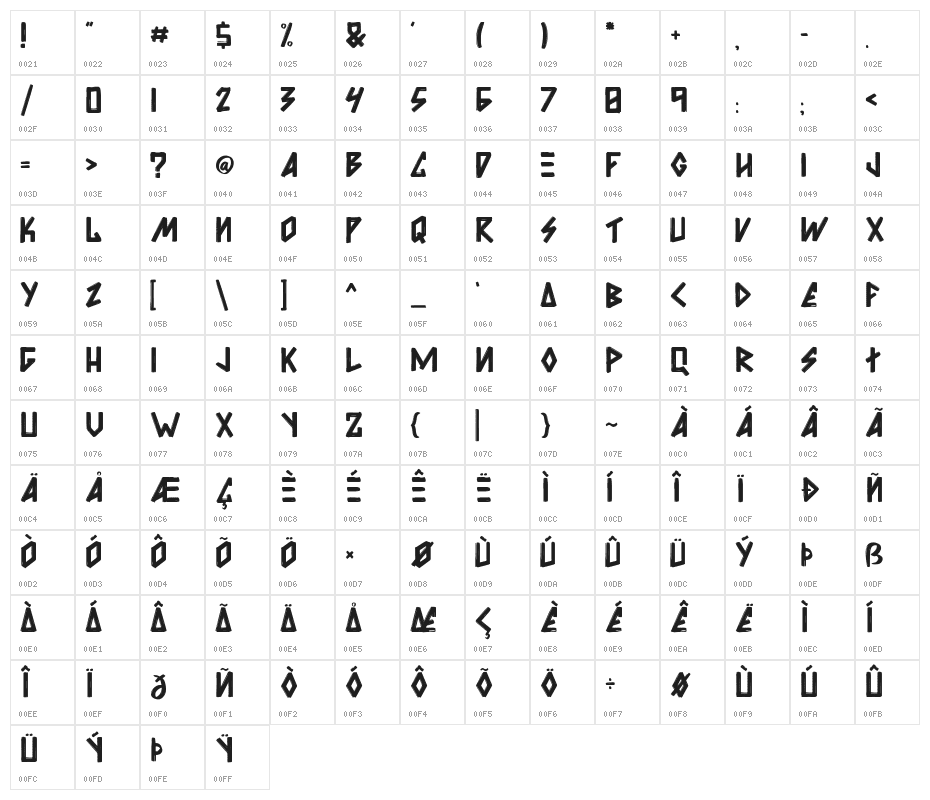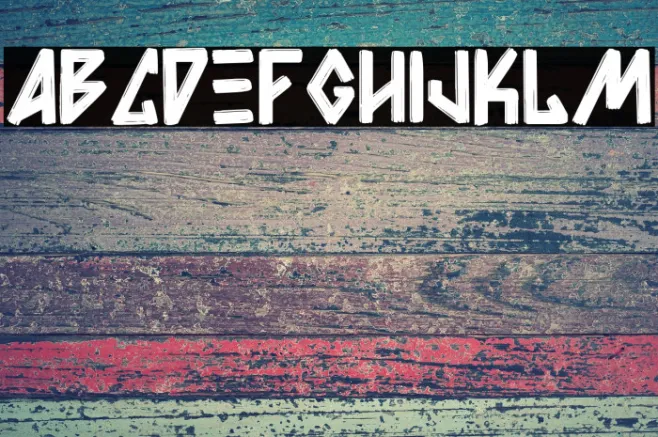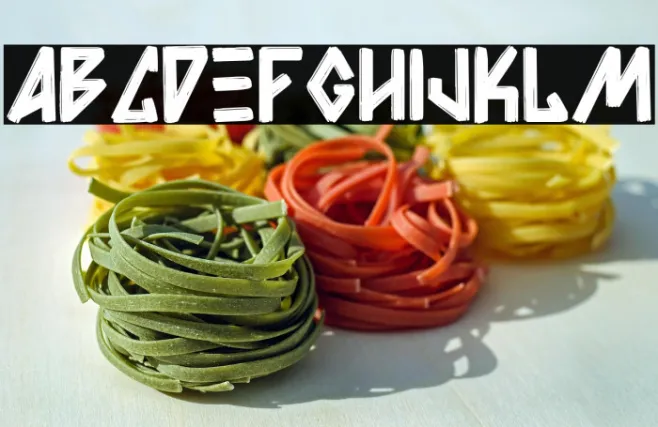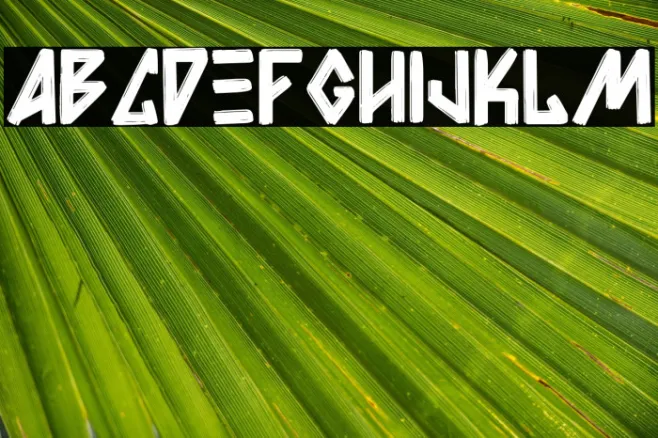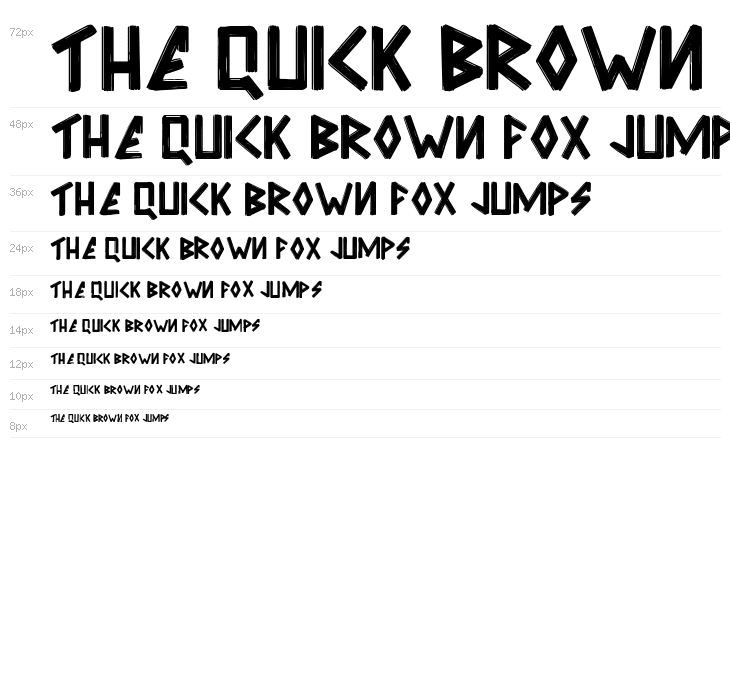
Awesome Brush Font
Awesome Brush Description
This font features a bold and dynamic brush style, characterized by its thick strokes and angular edges. The letters exhibit a hand-drawn aesthetic, with a slightly irregular baseline that adds to its energetic and informal appearance. The uppercase and lowercase letters maintain a consistent style, with a strong emphasis on diagonal lines and sharp corners. Numbers and special characters follow the same bold and expressive design, making the font suitable for attention-grabbing headlines and creative projects. The overall look is modern and edgy, perfect for designs that require a touch of personality and flair.
| Proposed Projects | Ideal for posters, logos, branding, and any design needing a bold, artistic touch. |